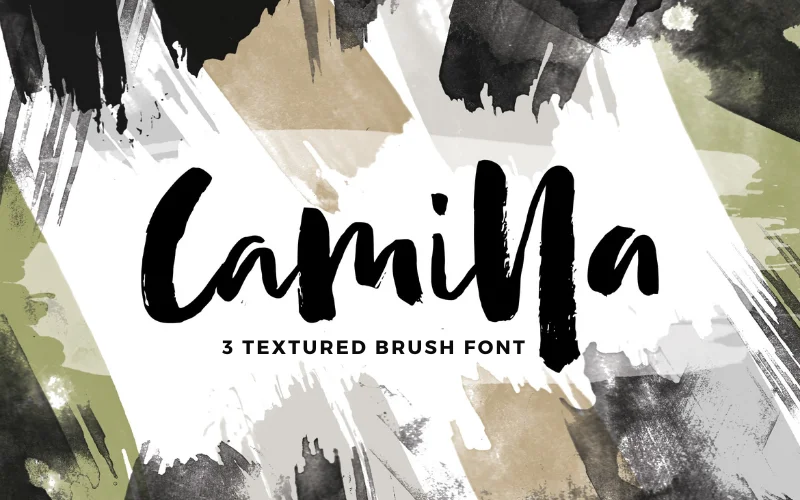
Camilla — 3 Textured Brush Font | Extended Commercial License
Bring an organic, handcrafted look to your designs with Camilla — a textured brush font family crafted to add depth, movement, and an artistic feel to any project. Camilla includes three realistic brush texture styles in both OTF and TTF formats and is ready for logos, posters, banners, social media graphics, and more.
Features
- Handcrafted textured brush fonts with realistic paint/brush texture
- Three textured styles:
- Camilla Texture Font One
- Camilla Texture Font Two
- Camilla Texture Font Three
- Multilingual support (examples): Spanish, Finnish, Filipino, French, Swiss German — and more (full list included in the product)
- Includes special characters and symbols
- Includes several ligatures (examples: ll, rr, st, tt)
Suitable for
- Logos
- Posters
- Banners
- Social media graphics
- Packaging and other creative projects